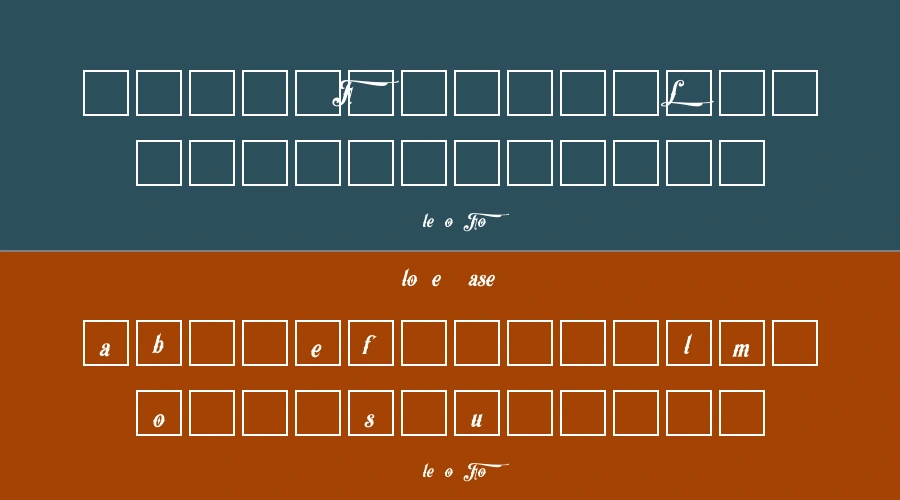
About Appleton Font
Appleton Font represents a sophisticated approach to type design, balancing tapered strokes with reliability. Perfect for packaging hero, this font family showcases impressive consistency and technical sophistication throughout its character set. Designers appreciate its versatility and reliability.
Designers will appreciate nuanced touches including humanist proportions and standard ligatures, adding sophistication to any project. These features become apparent in formal invitations, where personality transfer matters most. The careful treatment of bowl width and institutional trust ensures optimal performance.